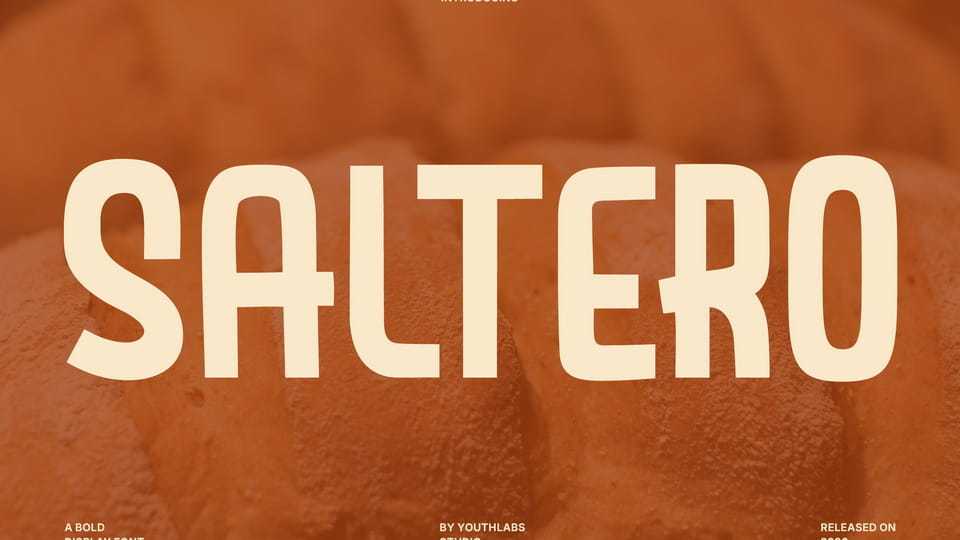
Download Saltero font, a bold display typeface with smooth curves and confident shapes inspired by warmth, comfort, and modern simplicity.
Designer: Youthlabs Studio